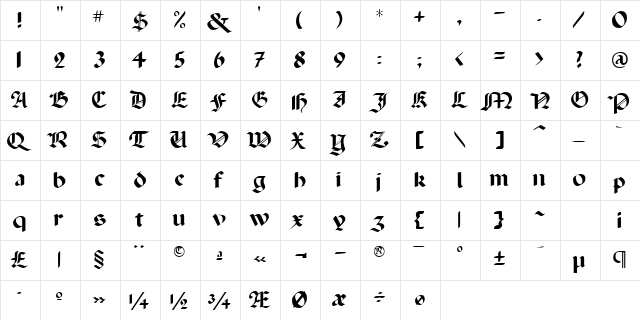
Lancaster Regular
Design Context for Lancaster Typeface
Lancaster is a composed and adaptable typeface that performs quietly and consistently across a wide range of design contexts.